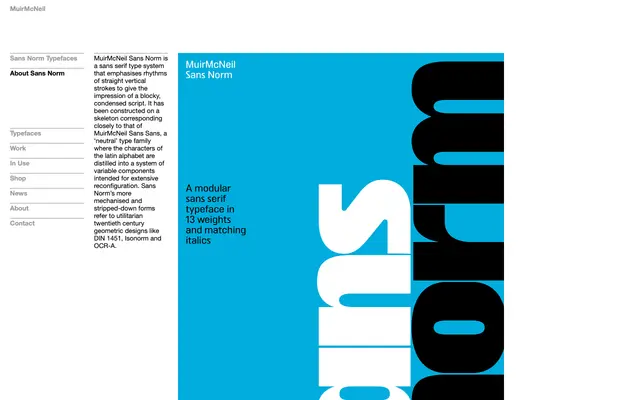
Sans Norm
A mechanised geometric sans built on a shared skeleton with Sans Sans, referencing DIN 1451, Isonorm and OCR-A across 13 weights in upright and italic.
The family emphasises rhythms of straight vertical strokes to produce a blocky, condensed appearance, constructed on a skeleton closely related to that of MuirMcNeil Sans Sans. Its stripped-down, utilitarian character draws on twentieth century geometric standards such as DIN 1451, Isonorm and OCR-A. Thirteen matching weights are available in both upright and italic styles, making it a systematic and distinctively flavoured option for grid-driven or technical work.
Constructed on a geometric skeleton with mechanised, stripped-down forms referencing utilitarian twentieth century designs like DIN 1451 and Isonorm, placing it firmly in the geometric sans subcategory with a condensed, blocky character.